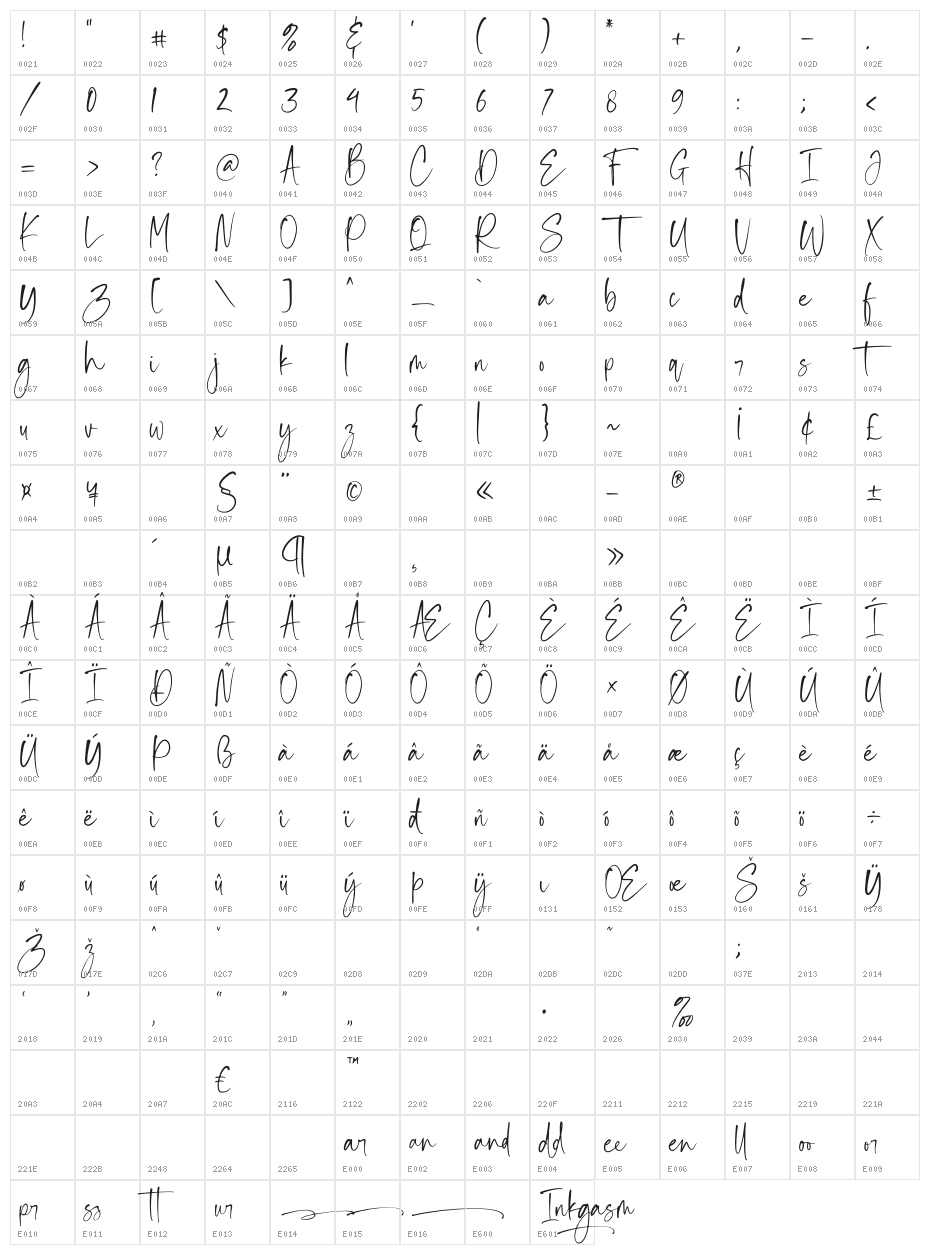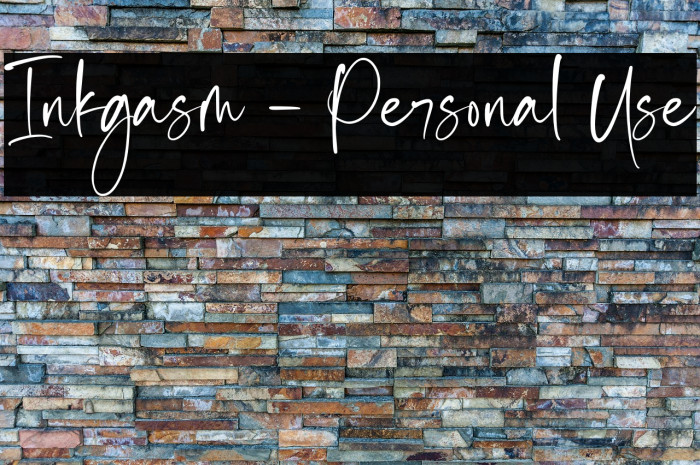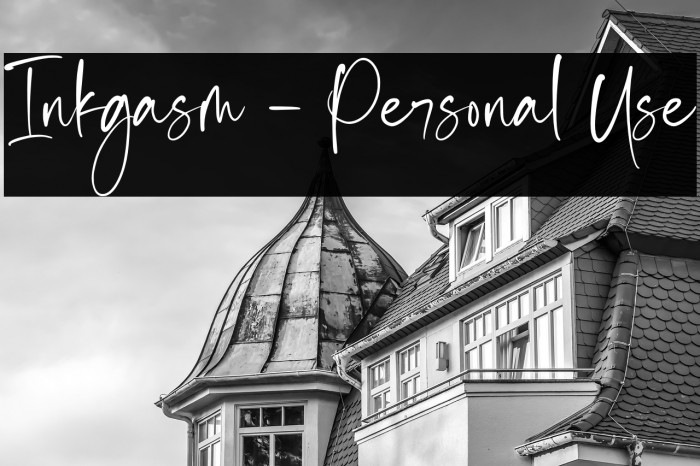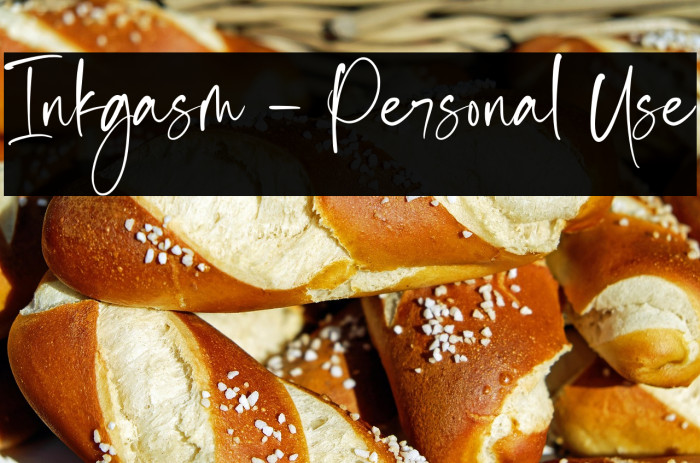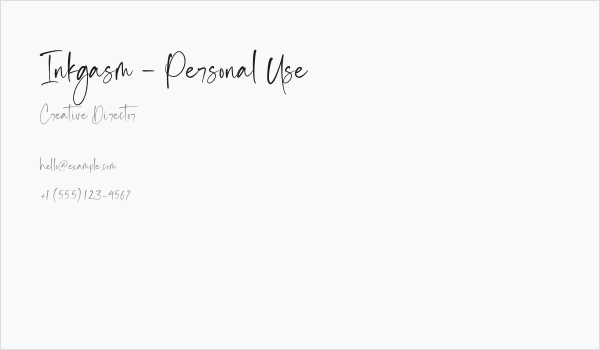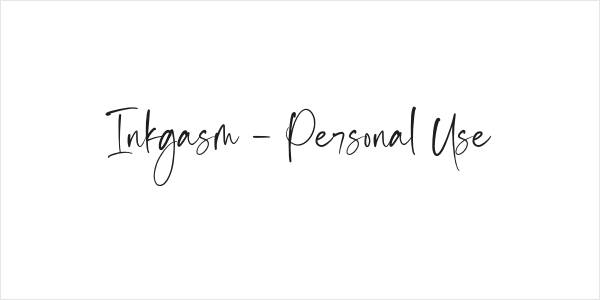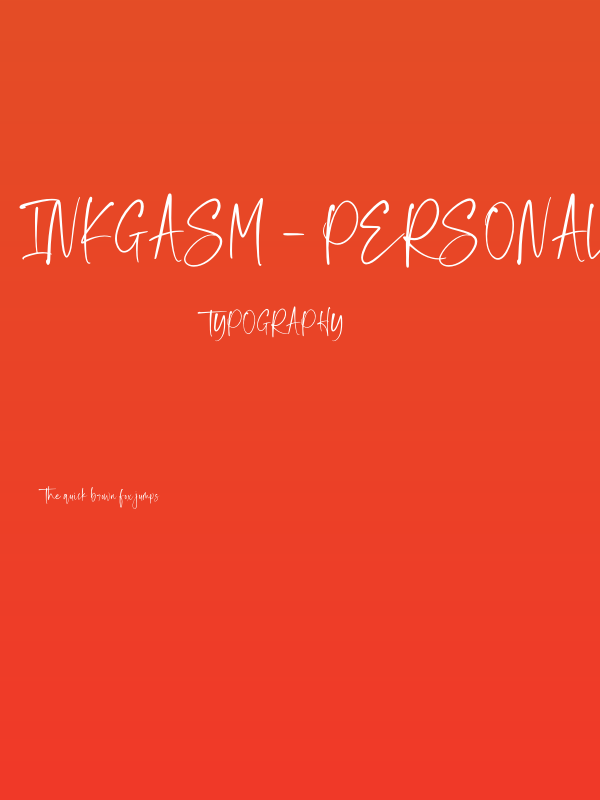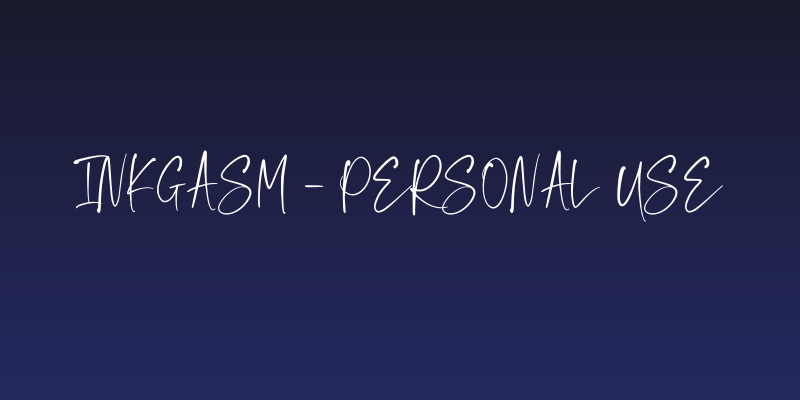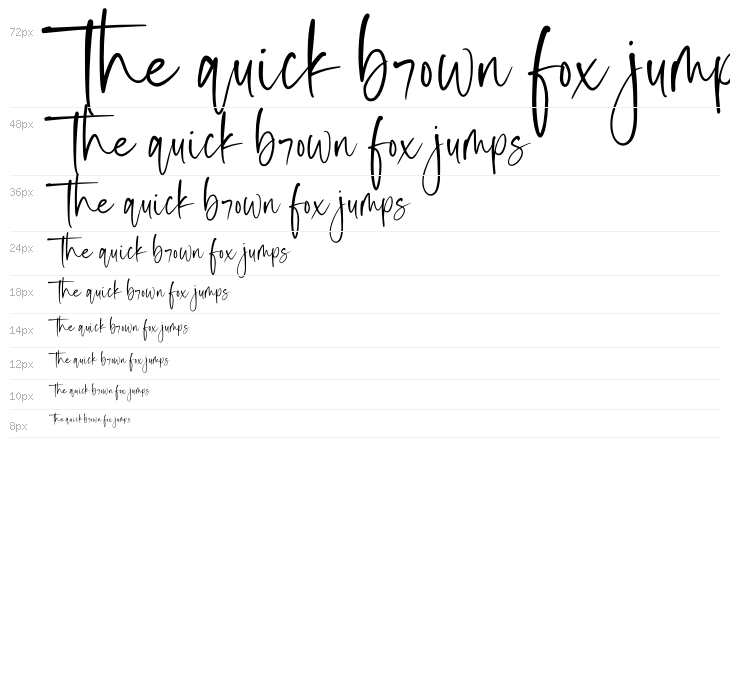
Inkgasm - Personal Use Font
Inkgasm - Personal Use Description
This font features a dynamic and expressive handwritten style, characterized by its fluid and organic strokes. The uppercase letters are tall and slightly narrow, with a playful and artistic flair that gives them a unique personality. The lowercase letters maintain a consistent flow, with some characters extending below the baseline, adding to the font's casual and informal appearance. The numbers are bold and clear, matching the overall style of the letters. Special characters are creatively designed, maintaining the handwritten aesthetic. This font is perfect for projects that require a personal touch, such as invitations, greeting cards, or creative branding.